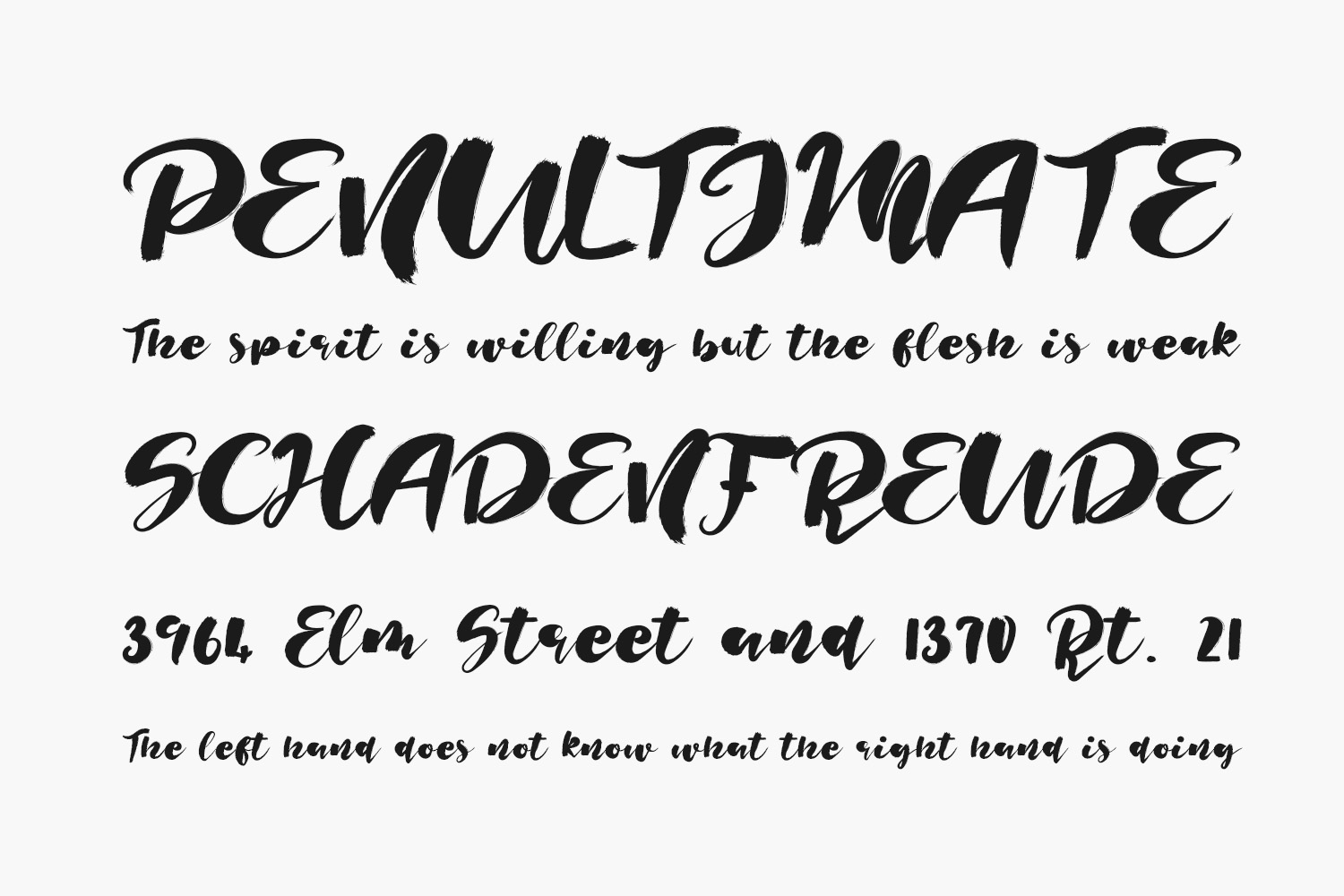
Hello Love Free Font is a chic, refined script font that emanates sophistication and elegance. Its stylish alternates and ligatures make this font the perfect match for any project. Hello Love Free Font was designed by Dedi Mujiono and is free for personal use only. Please purchase the full version for commercial use.